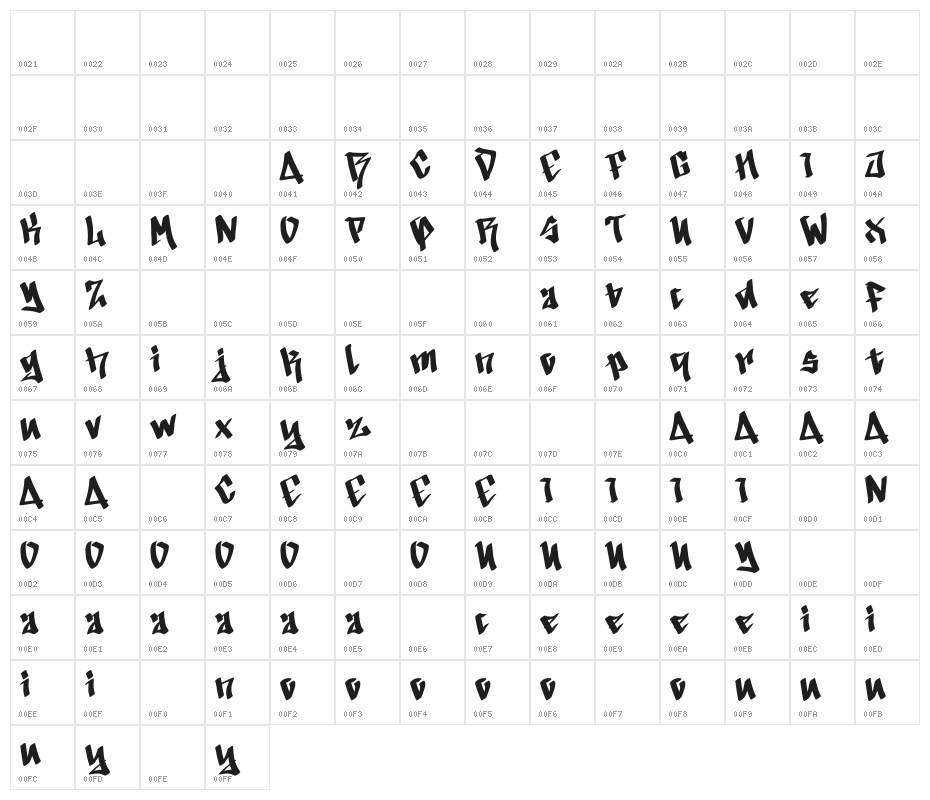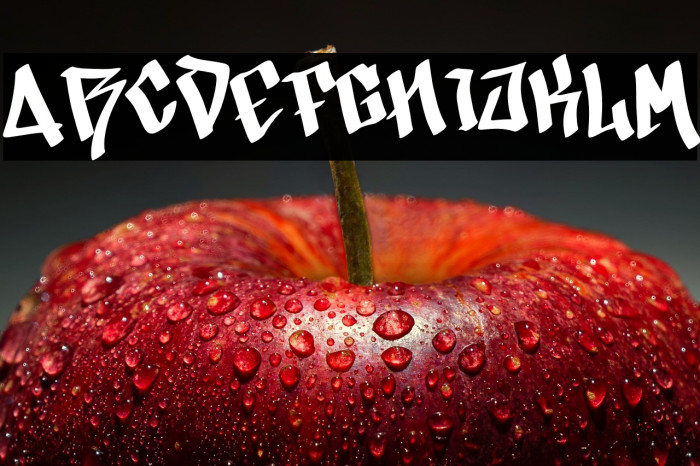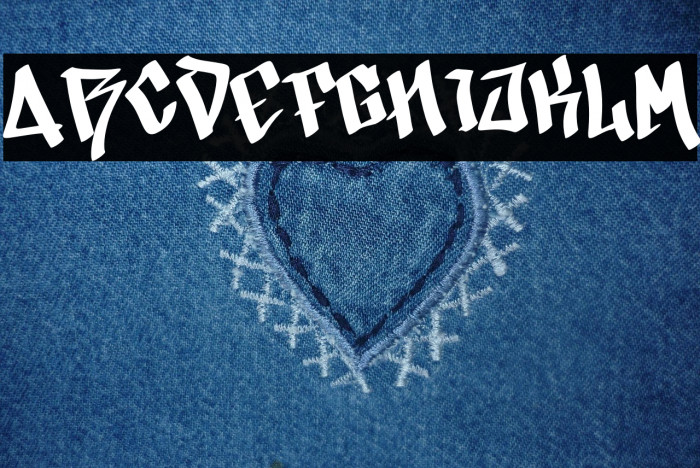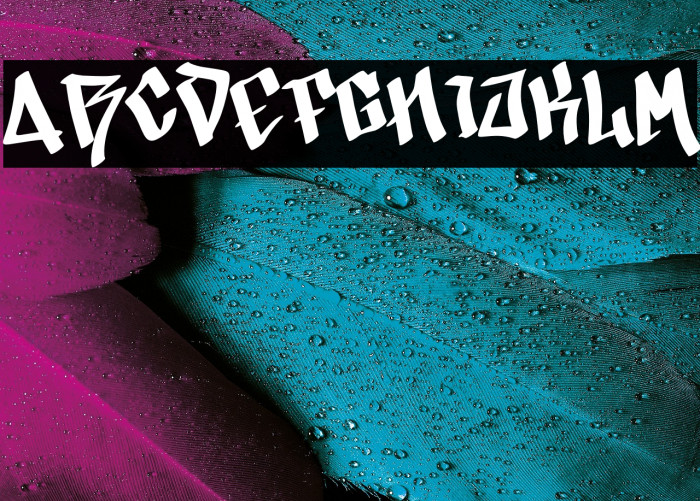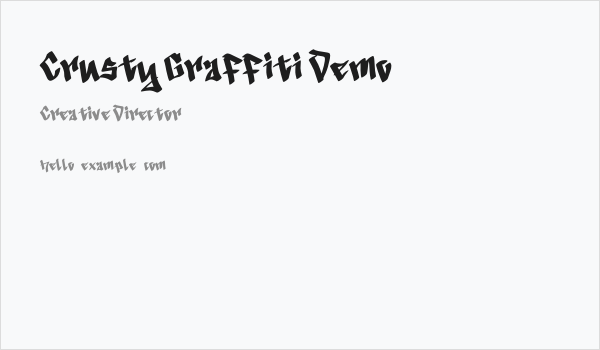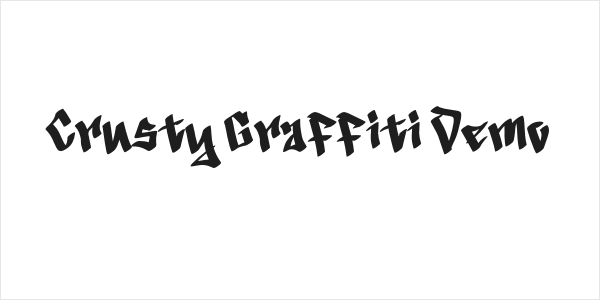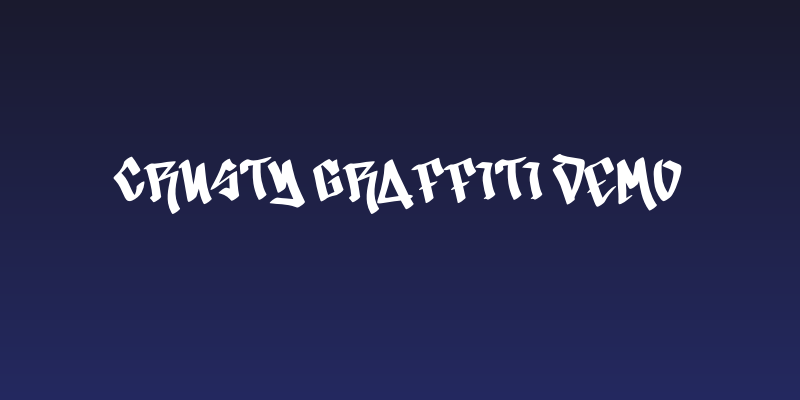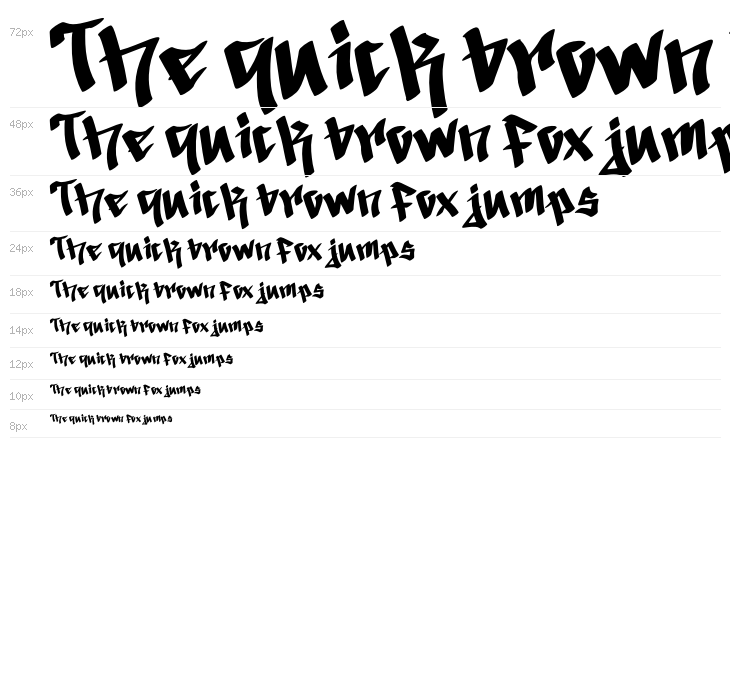
Crusty Graffiti Demo Font
Crusty Graffiti Demo Description
A bold, graffiti-style font with sharp angles and a dynamic, energetic appearance.
| Overall Style | Urban, Energetic, Dynamic |
| Proposed Projects | Street art, urban-themed designs, posters. |